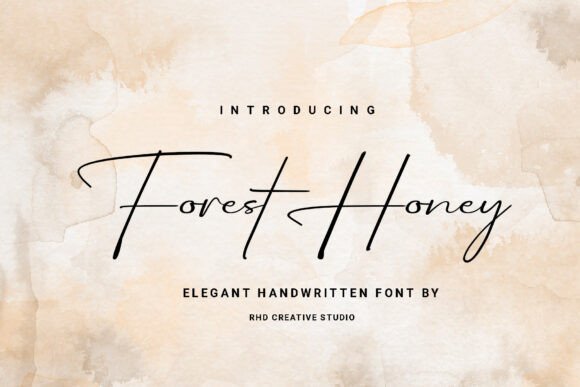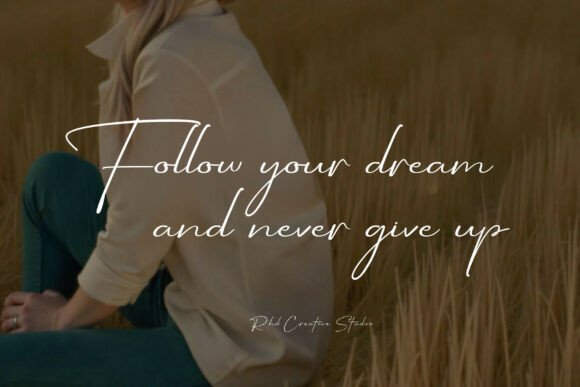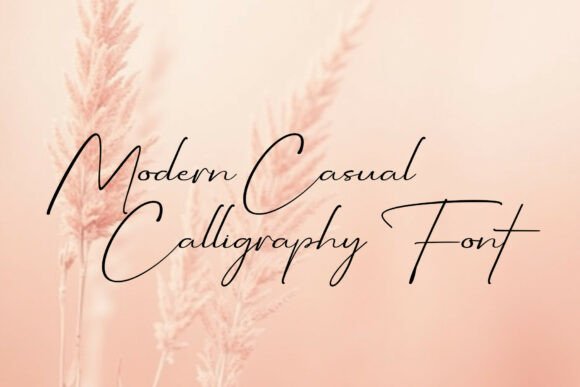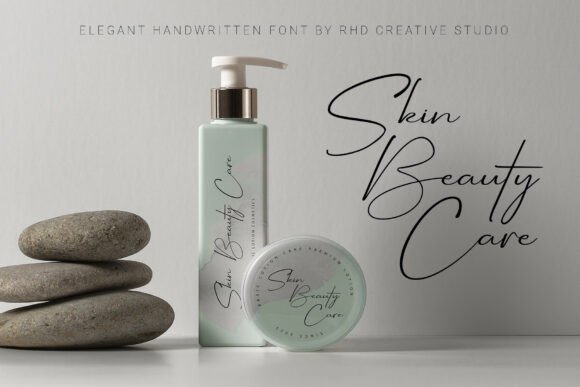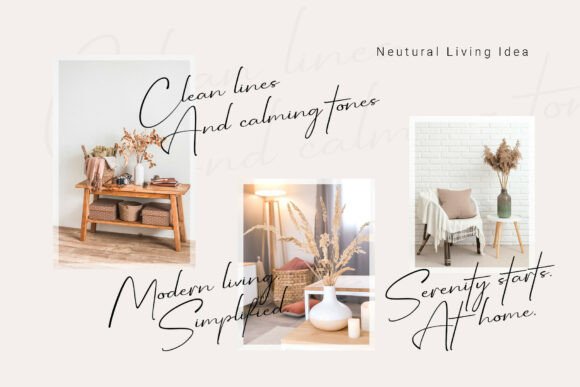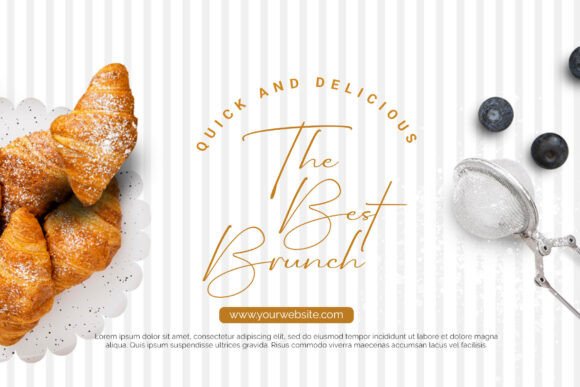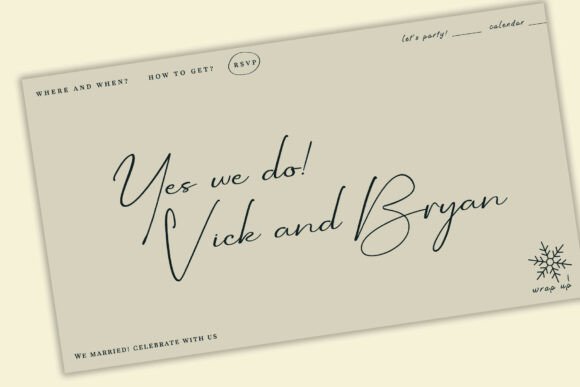
The Sweet Allure of Forest Honey Font
Remember the moment when you stumbled upon the perfect font for a design project? It’s as if the entire universe aligned, and your creativity soared. For designers seeking to infuse elegance and organic charm into their work, that moment might just be around the corner – courtesy of the enchanting Forest Honey Font.
This exquisite handwritten script is the epitome of luxury and natural beauty. With its flowing lines and refined curves, Forest Honey Font is perfect for crafting bespoke wedding invitations, creating sophisticated branding, or adding a touch of whimsy to quotes and lifestyle content. Its versatility makes it a valuable addition to any designer’s toolkit, allowing them to evoke a sense of sophistication with ease.
Whether you’re a seasoned pro or a budding designer, Forest Honey Font is sure to be a game-changer in your creative arsenal. Get ready to unlock new possibilities and take your designs to the next level with this stunning font.
Key Features of Forest Honey Font
- Unique Characteristics: Forest Honey Font features a unique, handwritten feel with subtle brush strokes and imperfections, giving it a personal and creative touch.
Designer Review: Forest Honey Font
Overall, I think Forest Honey is a great addition to any typography enthusiast’s collection. It’s a natural, earthy font that screams ‘relaxation’ and ‘serenity’. Here’s what I love about it: ✨
- Unique character set: Forest Honey has some really interesting, hand-crafted characters that set it apart from other fonts.
- Elegant script: The font’s script style is particularly beautiful, making it perfect for titles and headings.
- Warm and inviting: The font’s natural, earthy feel makes it perfect for brands that want to convey a sense of calm and relaxation.
However, I do have a few reservations about Forest Honey: ⚠️
- Limited font weights: While the font has some great weights, it’s a bit limited in terms of the number of options available.
- May not be suitable for all content: The font’s natural, handwritten feel may not be suitable for all types of content, such as technical or formal writing.
- Not ideal for small text: The font’s relatively large x-height makes it less than ideal for small text or body copy.
Overall, I think Forest Honey is a great font that’s perfect for the right project. It’s a unique, elegant font that’s sure to add some personality to your design. Just be aware of its limitations, and use it wisely.
Getting the Most Out of Forest Honey Font
For the best results, use Forest Honey font in conjunction with earthy or natural design elements, such as leaves, flowers, or wood textures.
Experiment with different font sizes, colors, and styles to create a unique and eye-catching look.
Forest Honey font is ideal for:
- Outdoor or nature-inspired designs.
- Wedding or event invitations.
- Branding or marketing materials for eco-friendly or sustainable
Alternatives to Forest Honey Font
Lobster Font is a cursive script font ideal for creating elegant and sophisticated designs. It is perfect for use in invitations, wedding stationery, and other formal events. Compared to Forest Honey Font, Lobster has a more refined and classic look, making it suitable for more formal and high-end designs.
Great Vibes Font is a modern script font with a relaxed and casual feel. It is ideal for use in creative and artistic projects, such as book covers, posters, and social media graphics. Unlike Forest Honey Font, Great Vibes has a more contemporary and edgy look, making it suitable for younger and more experimental audiences.